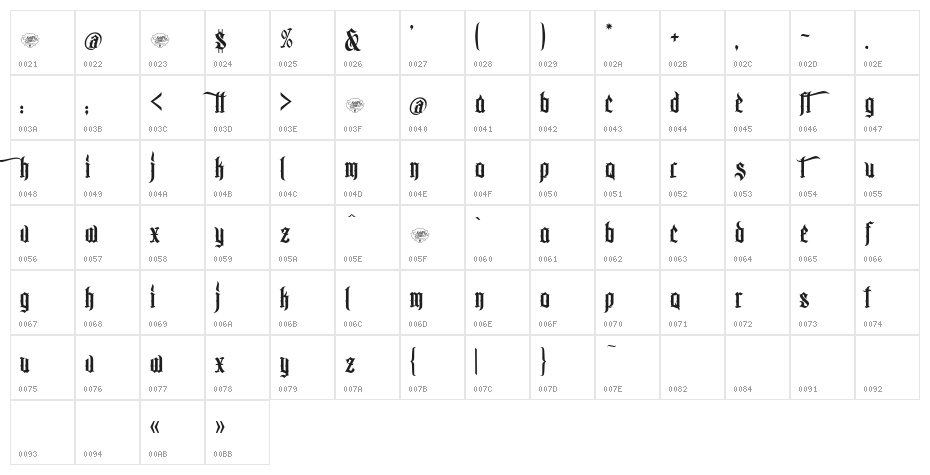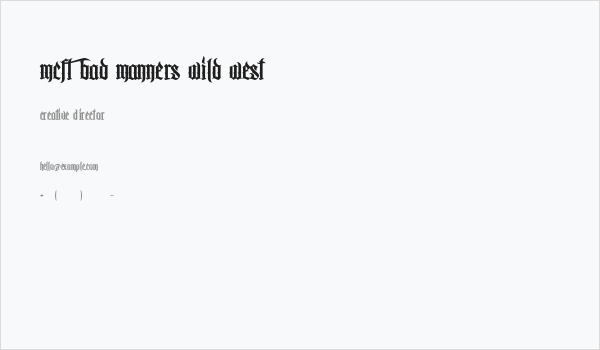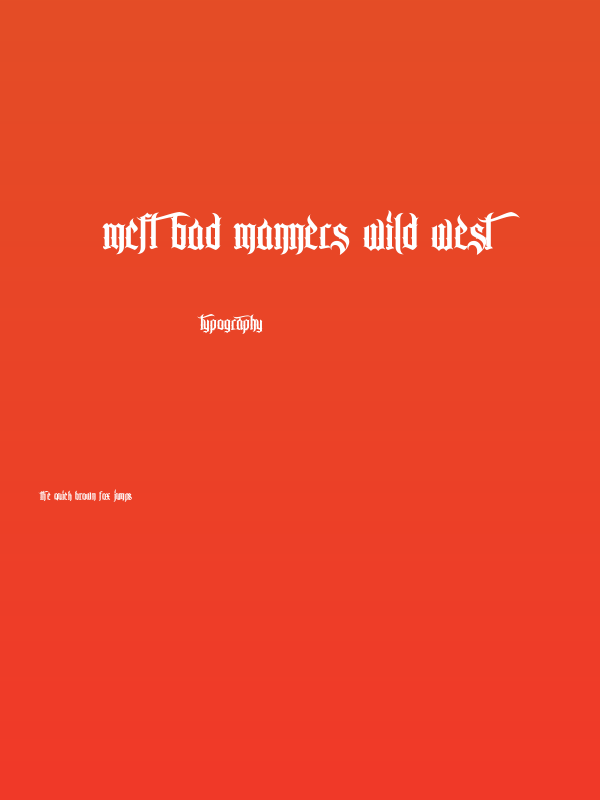
MCF bad manners wild west Font
MCF bad manners wild west Description
This font embodies a bold and striking blackletter style, reminiscent of traditional Gothic script. It features sharp, angular lines and dramatic flourishes, giving it a strong and authoritative presence. The uppercase and lowercase letters maintain a consistent style, with intricate detailing that adds to its ornate appearance. The numerals and special characters are equally elaborate, ensuring a cohesive look across all text elements. This font is ideal for projects that require a historical or medieval aesthetic, such as themed event invitations, branding for vintage products, or decorative signage.
Overall StyleVintage
Use CaseLogos, Headlines, Decorative text
Proposed ProjectsIdeal for themed event invitations, vintage product branding, or decorative signage.